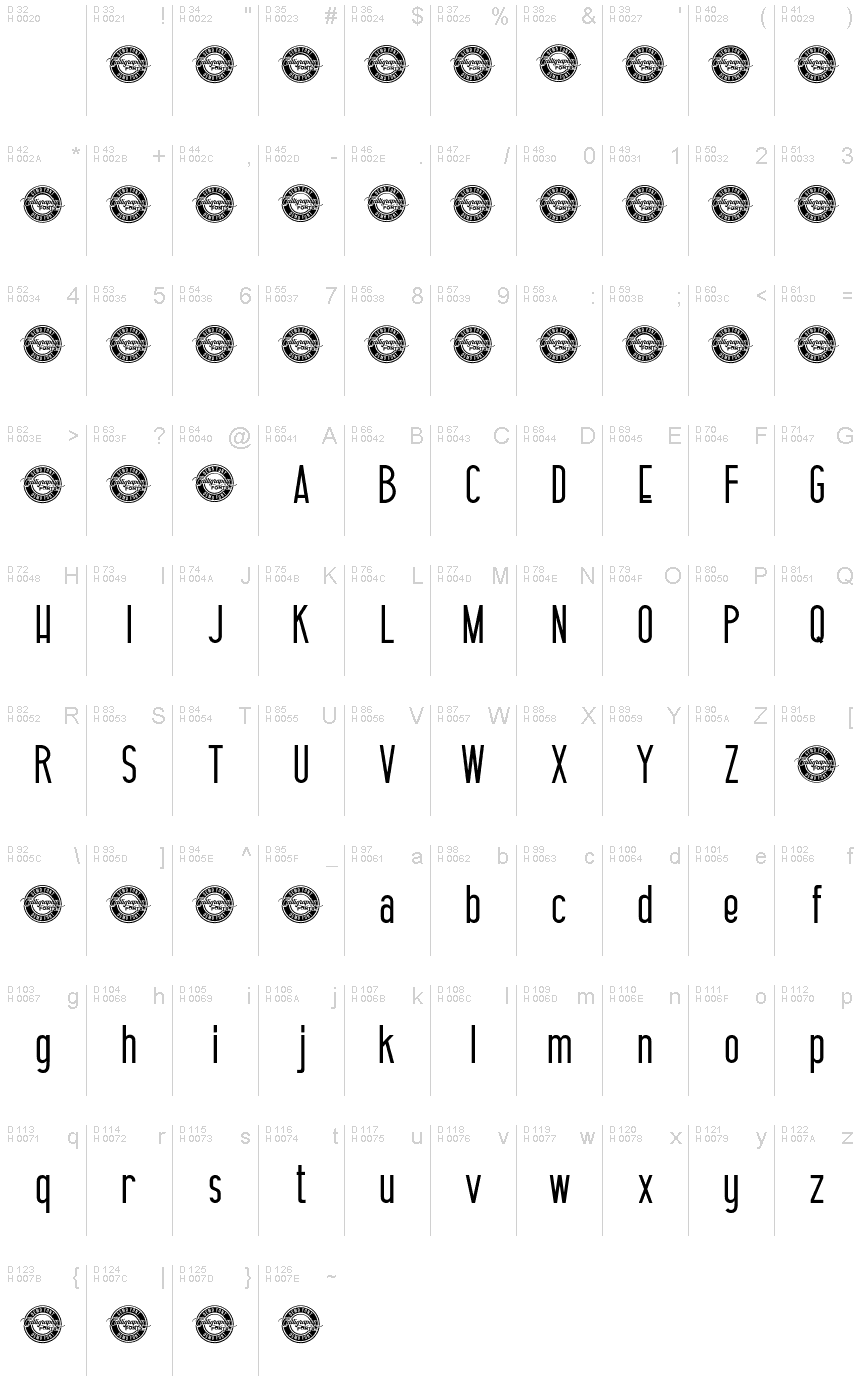
Happy Married Demo
Happy Married is a light, narrow sans serif typeface designed by Widiyanti & Sarah SP. It's perfect for creating playful yet elegant designs and can be used for various projects such as wedding invitations, social media posts, and magazine layouts.